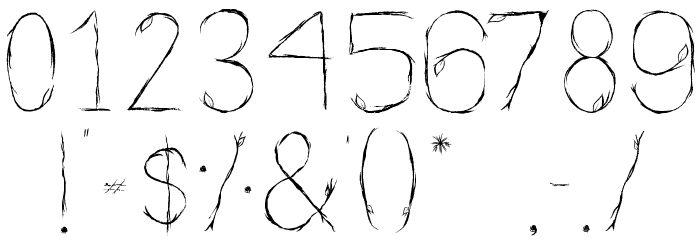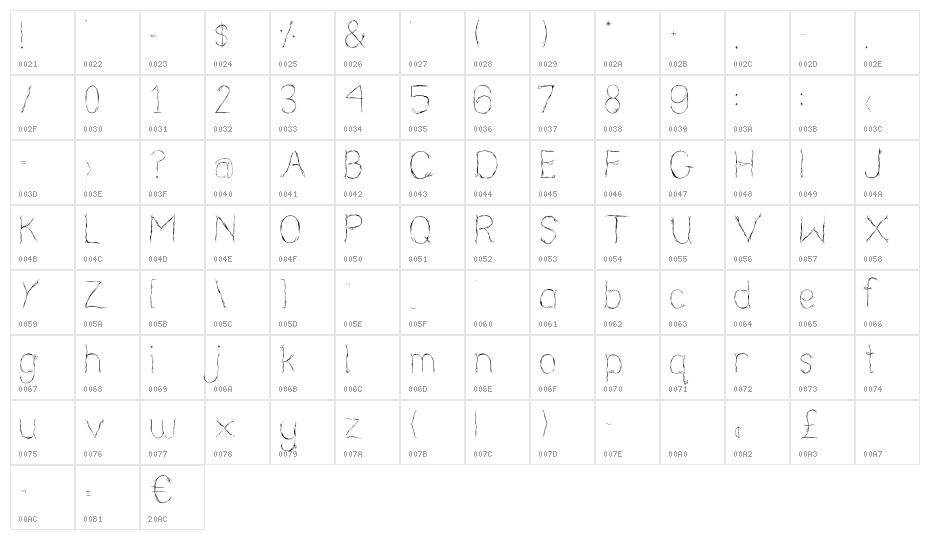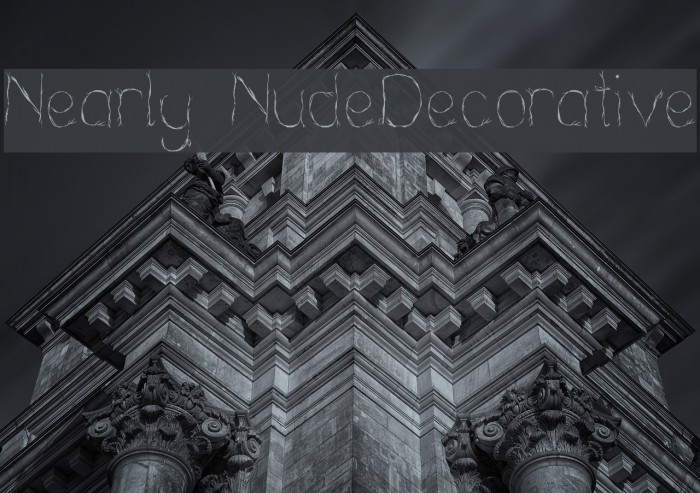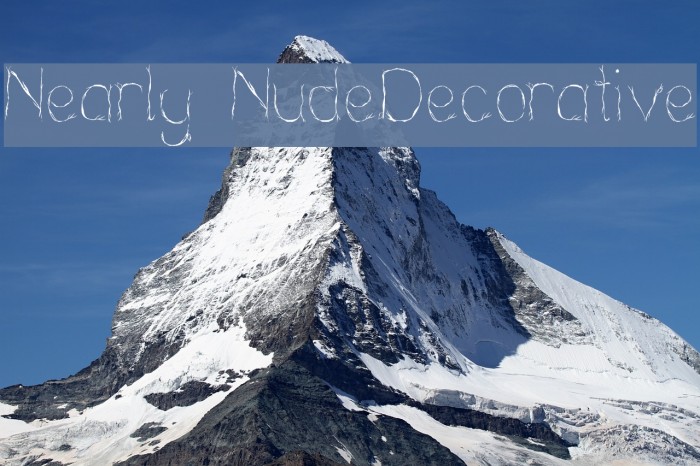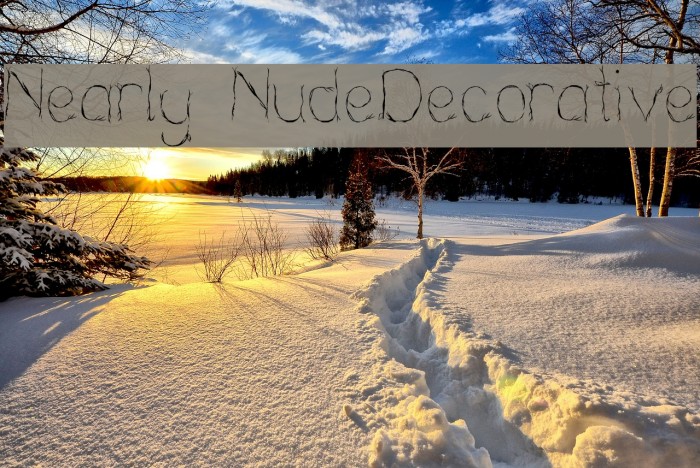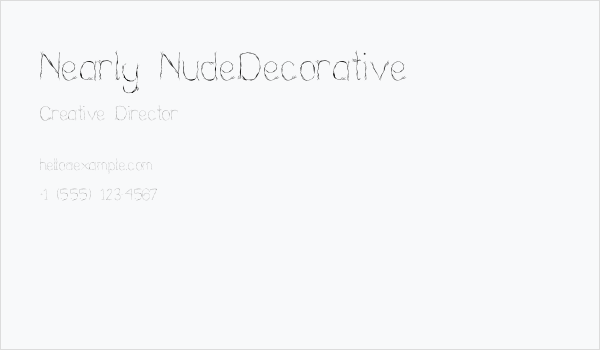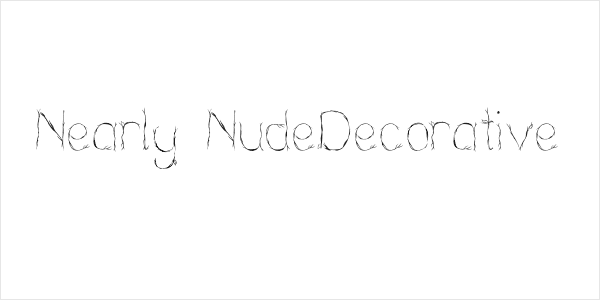
Nearly NudeDecorative Font
Nearly NudeDecorative Description
This font features a unique and decorative style, with each character resembling twigs or branches, giving it an organic and natural appearance. The strokes are uneven and irregular, adding a whimsical and artistic touch. The uppercase and lowercase letters maintain a consistent theme, with delicate extensions that mimic the growth patterns of plants. Numbers and special characters are similarly styled, ensuring a cohesive look across all glyphs. This font is ideal for projects that require a nature-inspired or rustic aesthetic, such as eco-friendly branding, outdoor event invitations, or artistic posters.
| Proposed Projects | Eco-friendly branding, outdoor event invitations, artistic posters. |